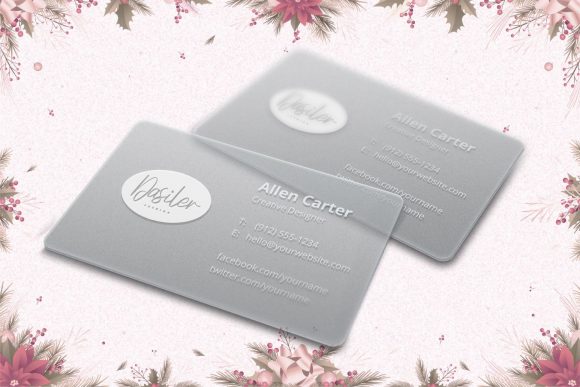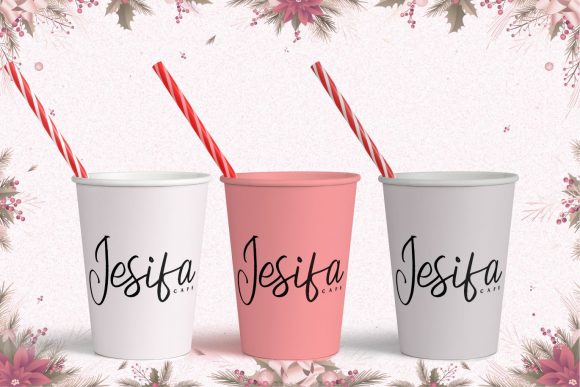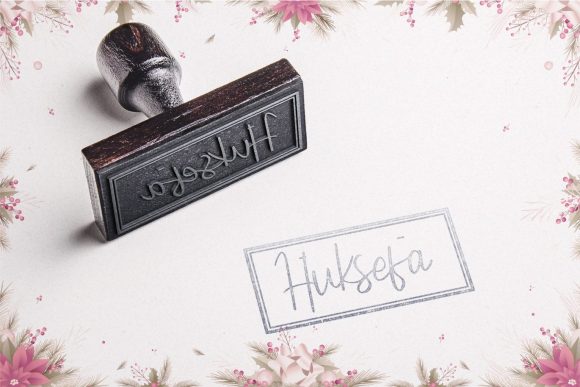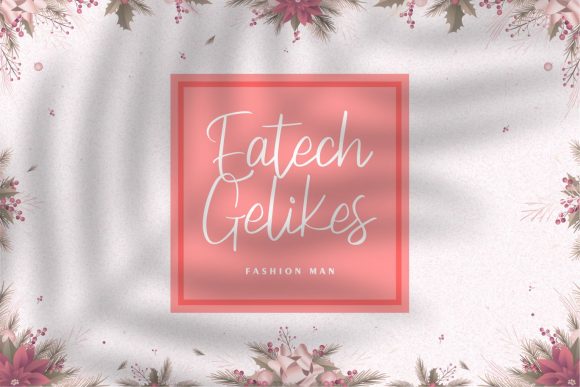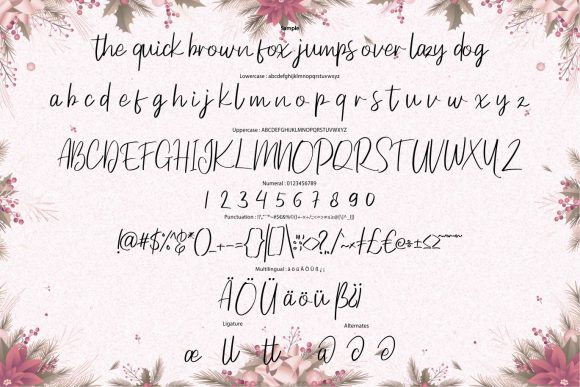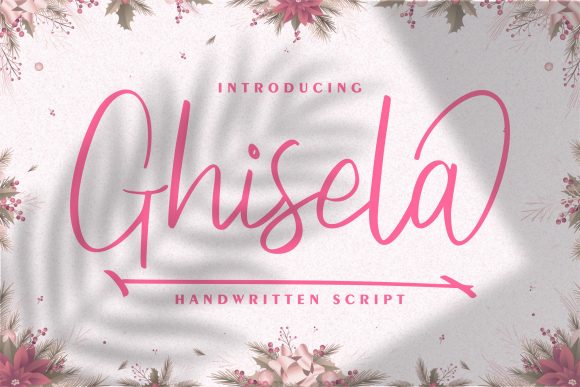
Ghisela Font: Elevate Your Design with a Touch of Luxury
In the world of typography, fonts play a crucial role in conveying the tone and aesthetic of a design project. For designers and crafters seeking to add a touch of elegance and sophistication to their work, the Ghisela Font is an exceptional choice. This beautiful light handwritten font boasts a unique feel and a stunning impact, making it the perfect addition to any luxury design project.
The Beauty of Ghisela Font
Ghisela Font is a masterpiece of typographic design, characterized by its delicate and refined strokes. Its light and airy texture gives it a sense of elegance, making it ideal for designs that require a touch of sophistication. The font’s unique feel is a result of its carefully crafted letterforms, which exude a sense of luxury and refinement.
What Makes Ghisela Font Stand Out
So, what sets Ghisela Font apart from other fonts in the market? Here are a few key features that make it a standout choice for designers and crafters:
• Unique feel: Ghisela Font has a distinct personality that is both elegant and refined.
• Light and airy texture: The font’s light texture gives it a sense of sophistication and luxury.
• Handwritten style: The font’s handwritten style adds a touch of warmth and personality to any design project.
• Versatility: Ghisela Font is suitable for a wide range of design projects, from branding and advertising to packaging and digital media.
How to Use Ghisela Font in Your Design Projects
Using Ghisela Font in your design projects is easy and straightforward. Here are a few tips to help you get started:
• Pair it with bold fonts: Combine Ghisela Font with bold fonts to create a striking contrast and add visual interest to your design.
• Use it for headlines: Ghisela Font is perfect for headlines and titles, where its elegant and refined strokes can shine.
• Add it to your branding: Use Ghisela Font as part of your brand identity to add a touch of luxury and sophistication.
The Benefits of Using Ghisela Font
By incorporating Ghisela Font into your design projects, you can enjoy a range of benefits, including:
• Enhanced visual appeal: Ghisela Font adds a touch of elegance and sophistication to any design project.
• Increased brand value: Using Ghisela Font in your branding can help to elevate your brand’s perceived value and luxury appeal.
• Improved readability: The font’s clear and refined strokes make it easy to read, even at small sizes.
In conclusion, Ghisela Font is a beautiful light handwritten font that can add a touch of luxury and sophistication to any design project. Its unique feel, light and airy texture, and versatility make it an exceptional choice for designers and crafters seeking to elevate their work. By incorporating Ghisela Font into your design projects, you can enjoy a range of benefits, from enhanced visual appeal to increased brand value. So why wait? Discover the beauty of Ghisela Font and take your design projects to the next level!